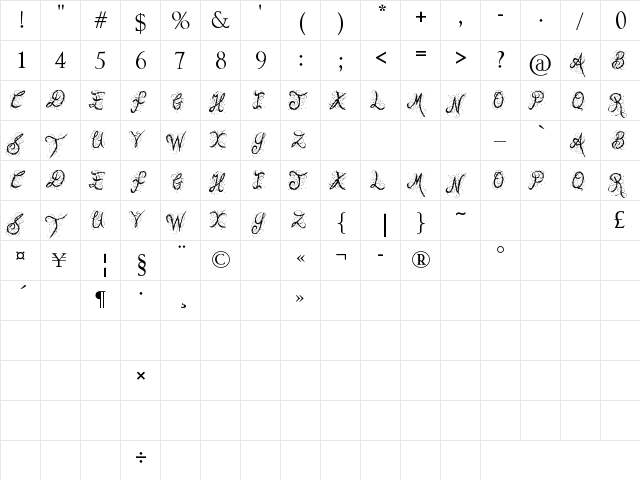
Real People Regular
Design Context for Real People Typeface
Real People is a composed and adaptable typeface that performs quietly and consistently across a wide range of design contexts.
Pro Tip: Pair Real People with a font of contrasting weight or personality to build a more expressive typographic hierarchy.